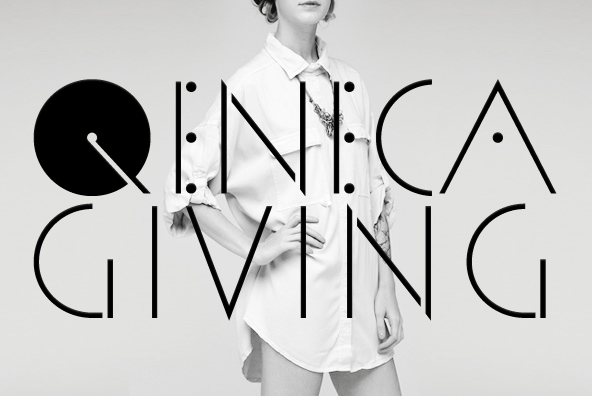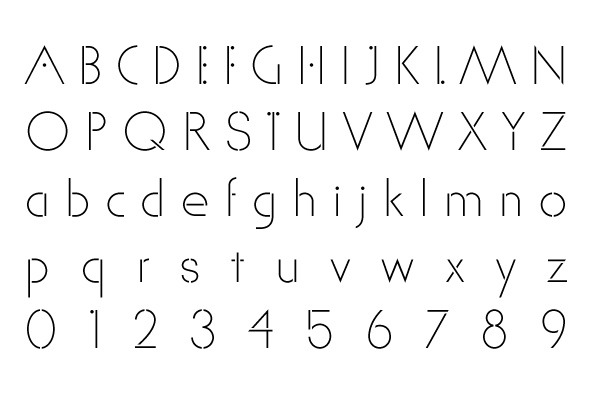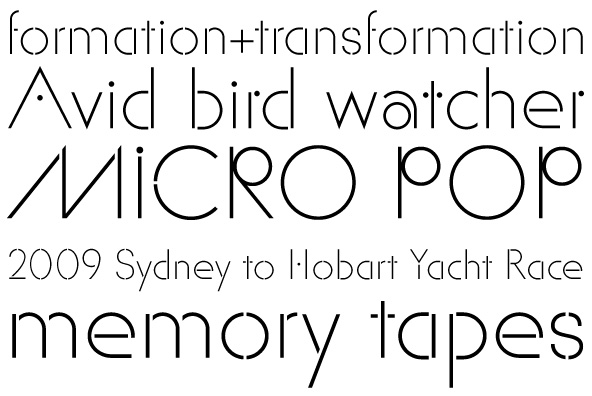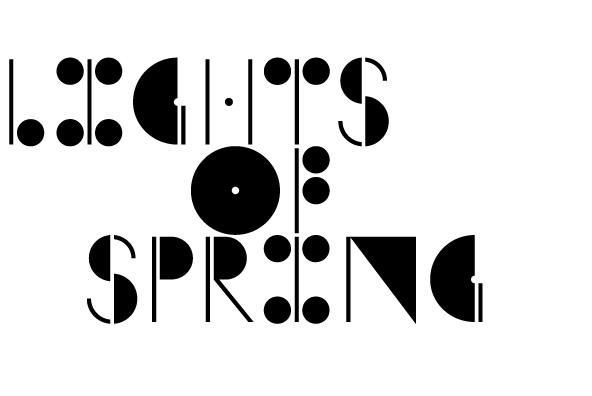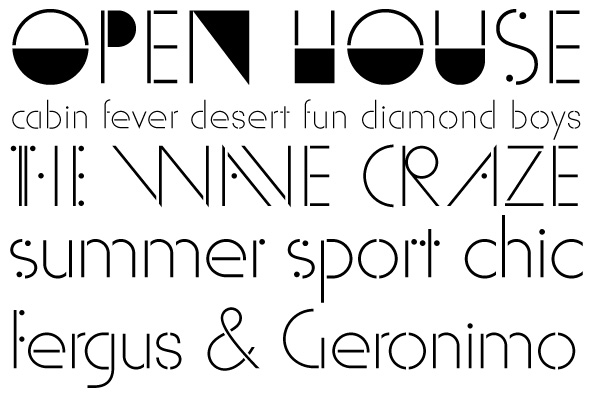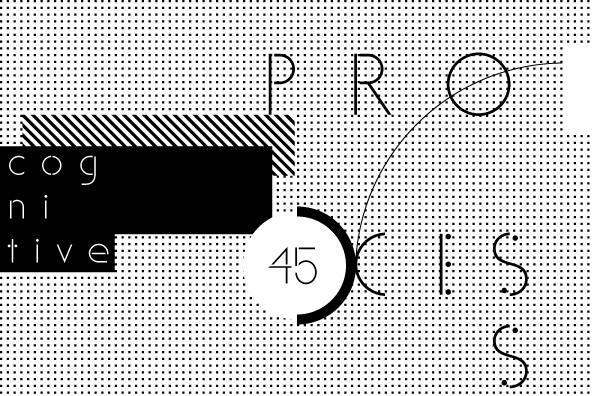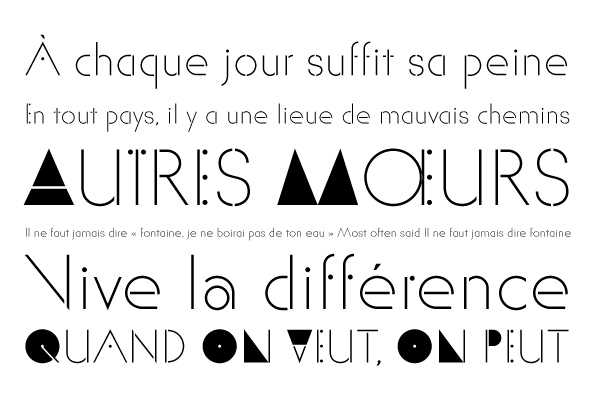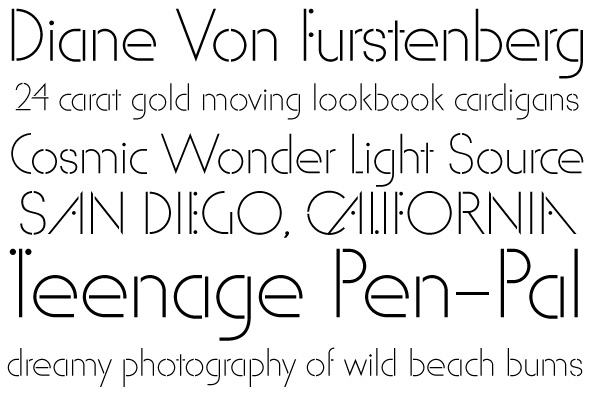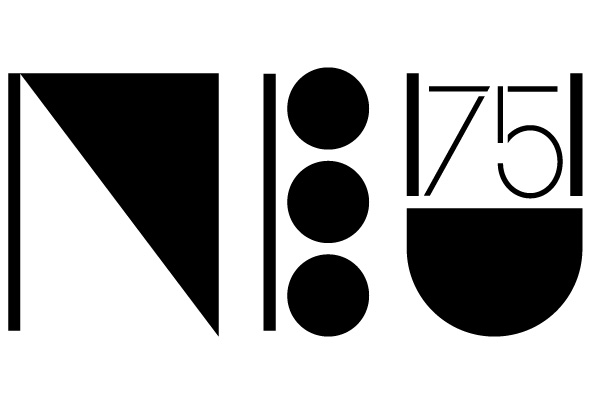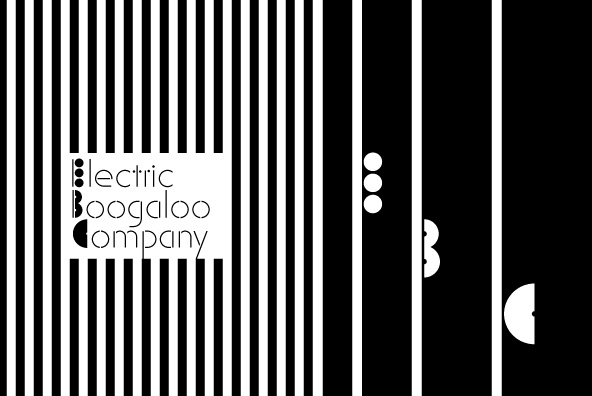
YWFT Valley
YWFT Valley is a thin, lean and fashionable sans-serif, display font which takes the notion of ball and stick form quite literally. The pattern of dots plays between letters adding to the rhythmic pacing when typeset. YWFT Valley pays homage to post-modernism in its embrace of a variety of stylistic alternates and ligatures, many of which were inspired by Lubalin's typographic innovations. Valley is available in opentype format, containing letter alternates, swashes and ligature design options.